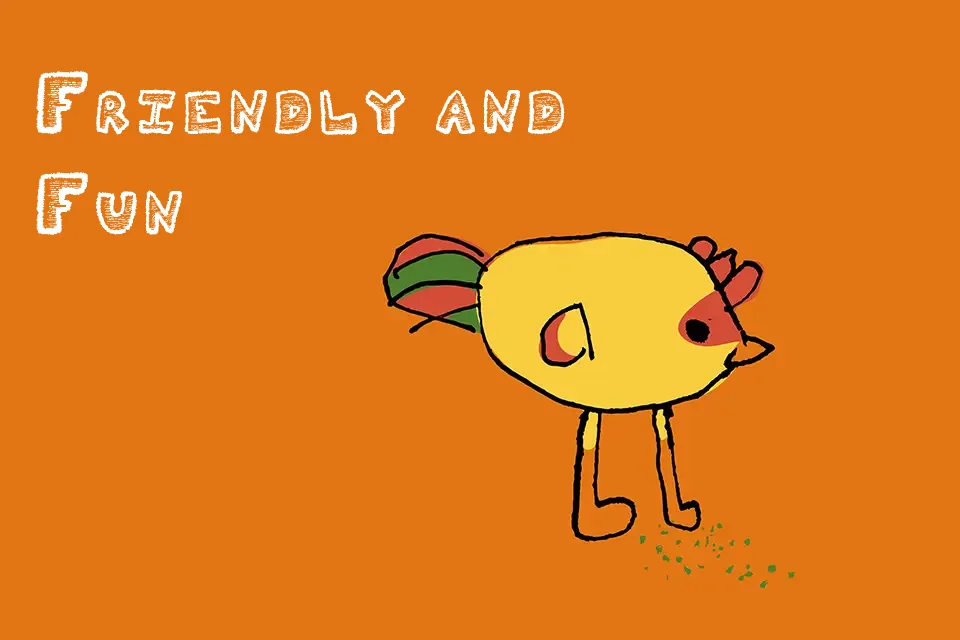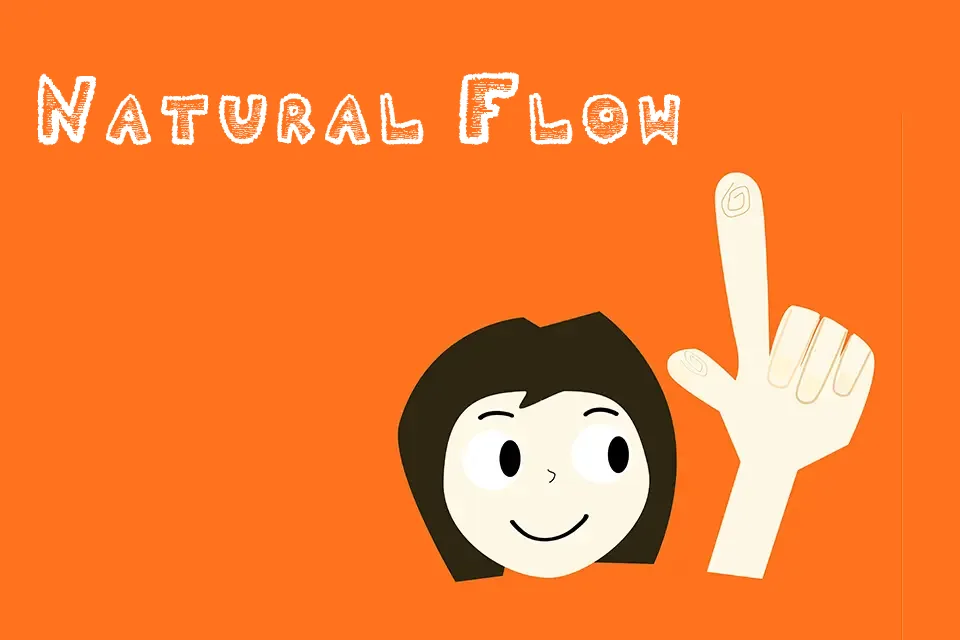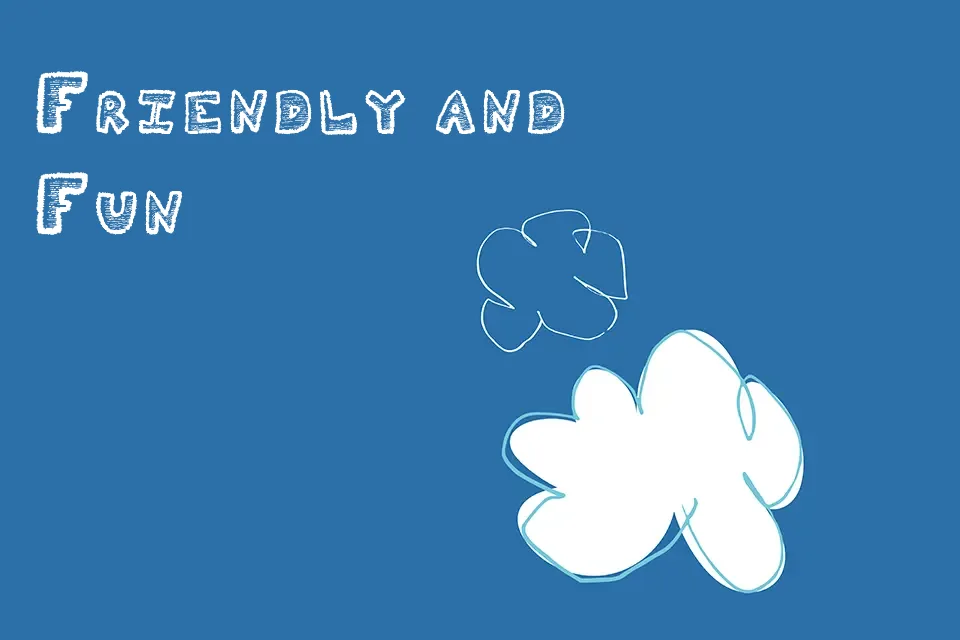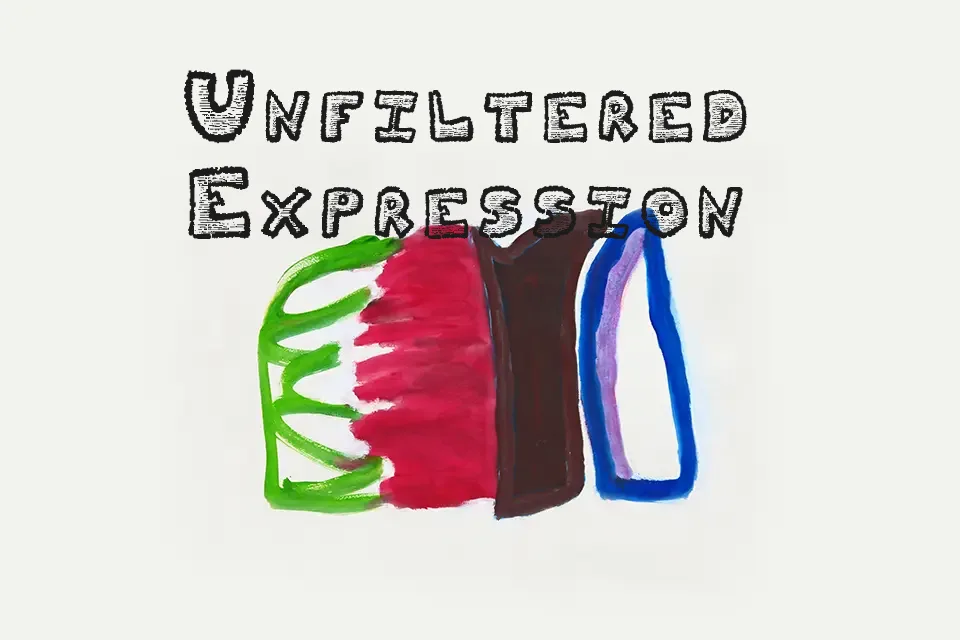
Kitty Font
Soft curves and rounded strokes give Kitty Font a gentle, handwritten feel that leans toward a casual, childlike style. The letterforms are slightly uneven, adding charm but reducing precision, which makes it more expressive than functional. It works nicely for children’s party invitations, playful product packaging, or cheerful Instagram posts where personality matters more than strict readability. However, spacing can feel inconsistent in longer text, and smaller sizes tend to lose clarity. From a usability standpoint, it shines in short headlines or decorative text, but struggles in structured or professional layouts.
kids party invitations
cute social media graphics
toy or snack packaging
corporate presentations
formal branding
Perfect for invitation, kids, and packaging, with a cute and cartoon style.